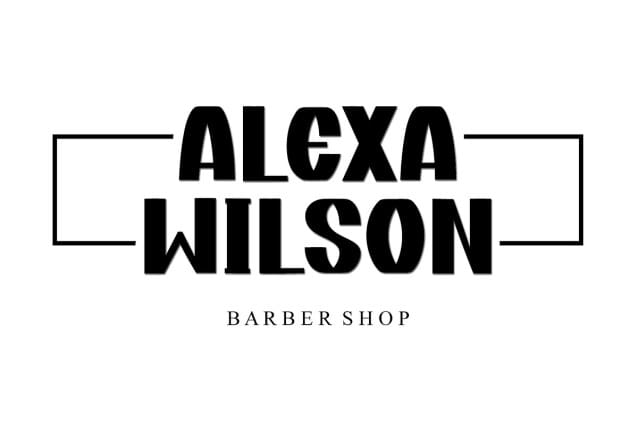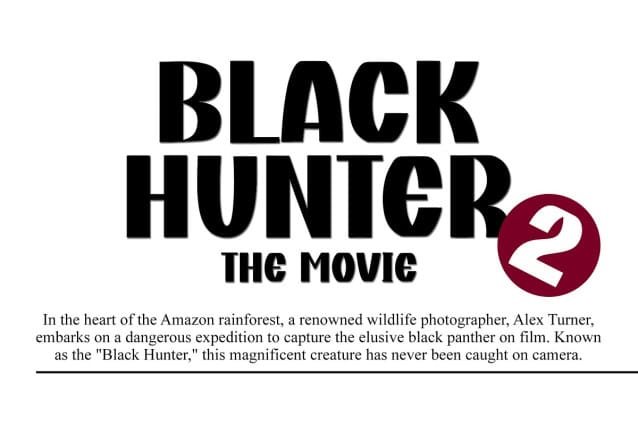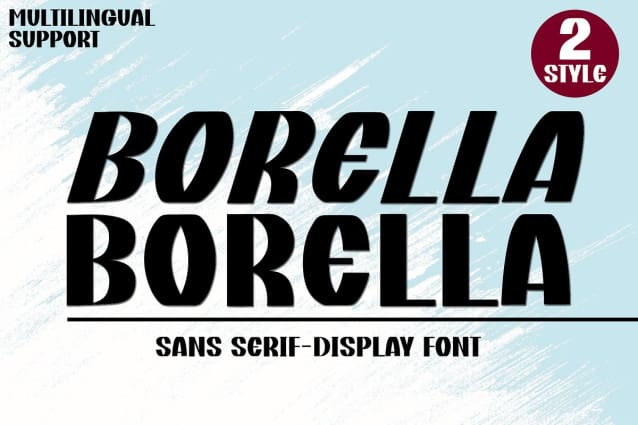
Borella Sans Font
Borella Sans Font, a sans serif font with a sophisticated charm. Expertly crafted, Borella delivers in both small scale projects and expansive corporate designs. This versatile typography tool seamlessly elevates your art, providing the perfect balance of professionalism and creativity. Unleash your full design potential with Borella, the sans serif font that refines and complements any space it occupies